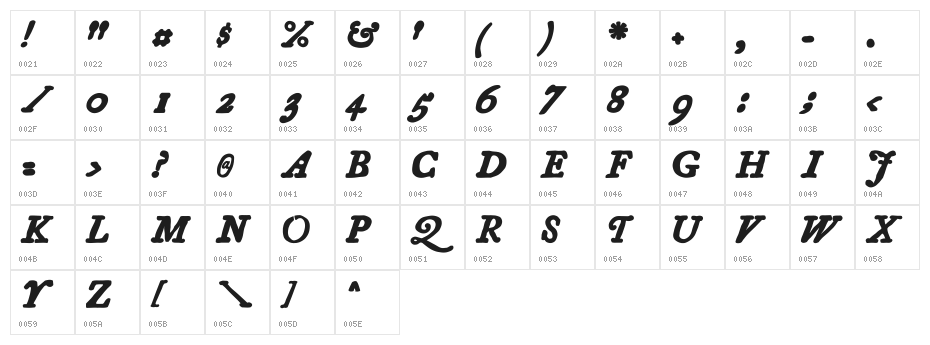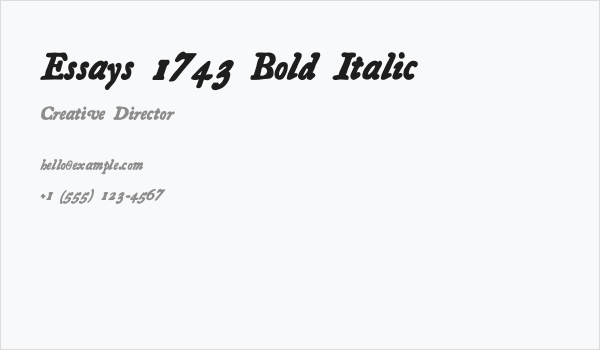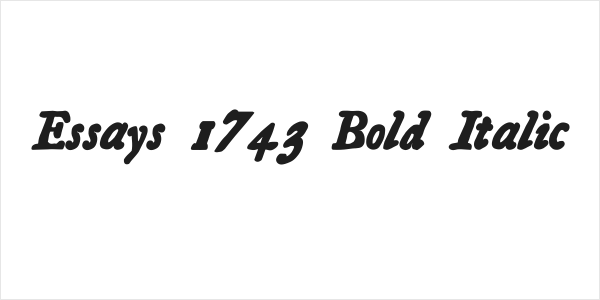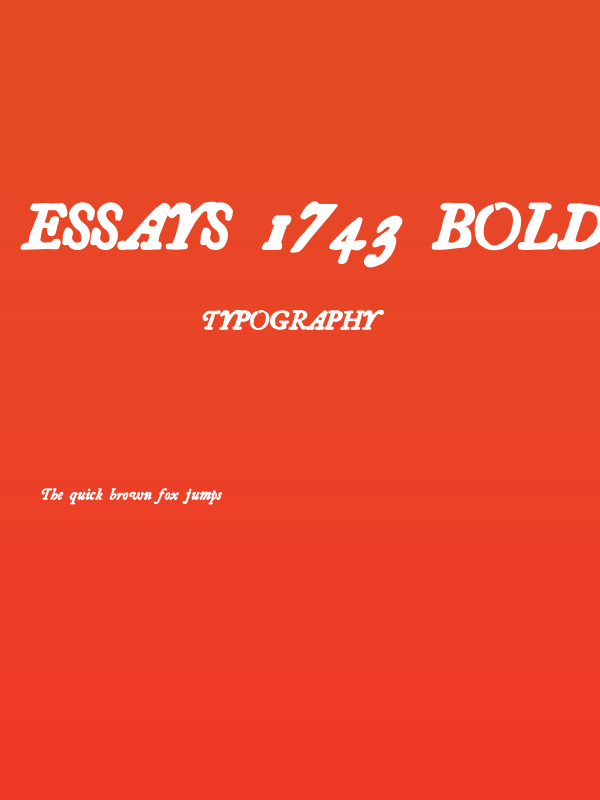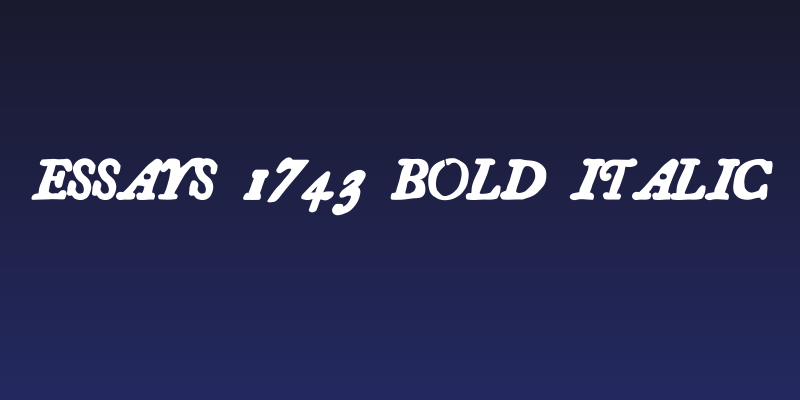
Essays 1743 Bold Italic Font
Essays 1743 Bold Italic Description
This font features a bold and italic style with a strong, dynamic presence. The characters are heavily weighted, providing a sense of robustness and impact. The italic slant adds a sense of movement and elegance, making it suitable for attention-grabbing designs. The uppercase letters are distinct with a slight flourish, while the lowercase letters maintain a consistent flow. Numerals are bold and clear, ensuring readability. Special characters are uniquely styled, adding to the font's decorative appeal.